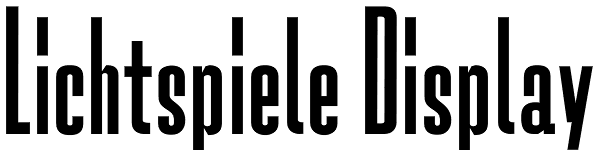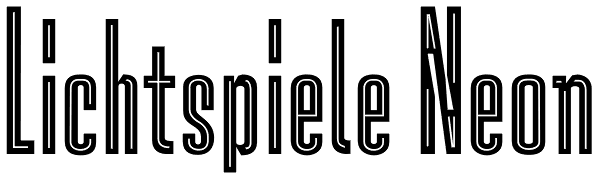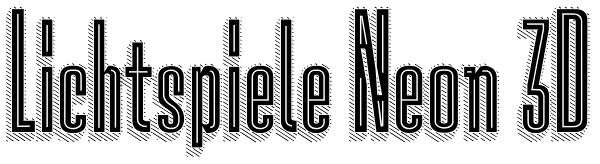
Lichtspiele
Cinemas from the early 20th century are called “Lichtspiele” in Germany. “Lichtspiele” transports you back to a time where neon lights and marquee letters decorated cinema façades. Of the five styles, three have two versions of italics — the...